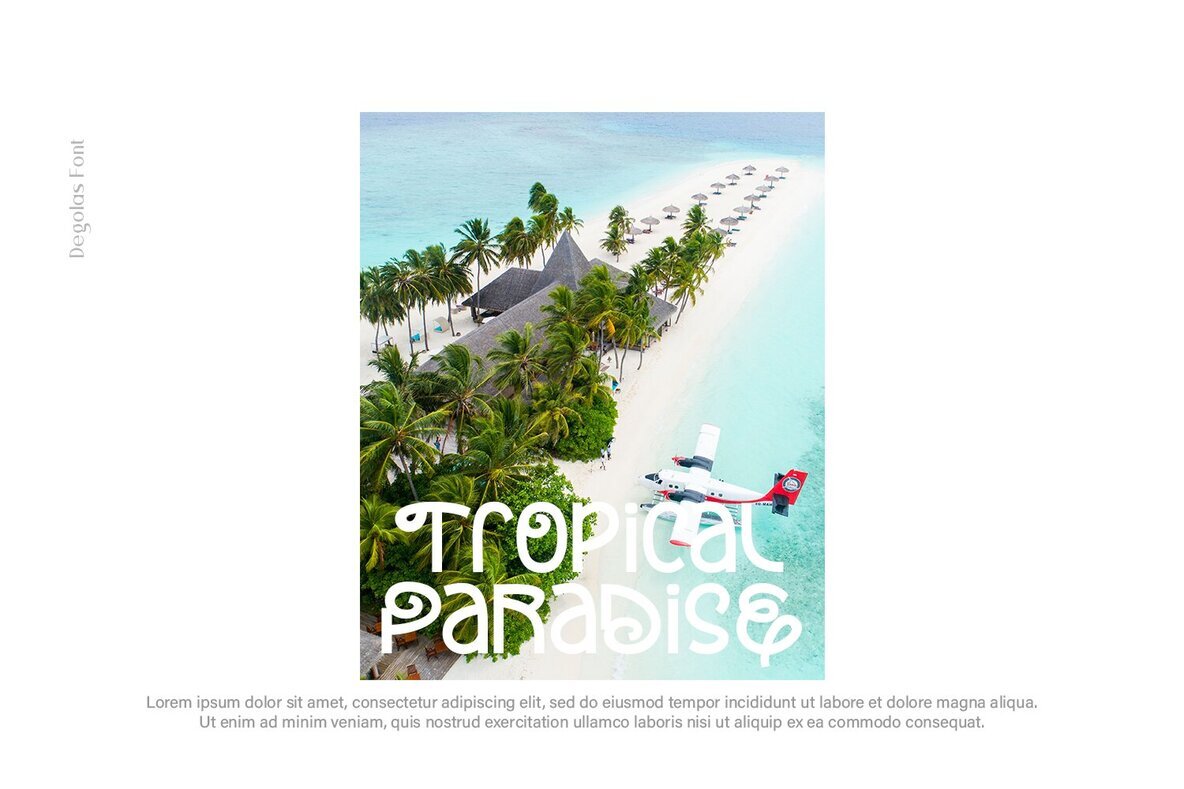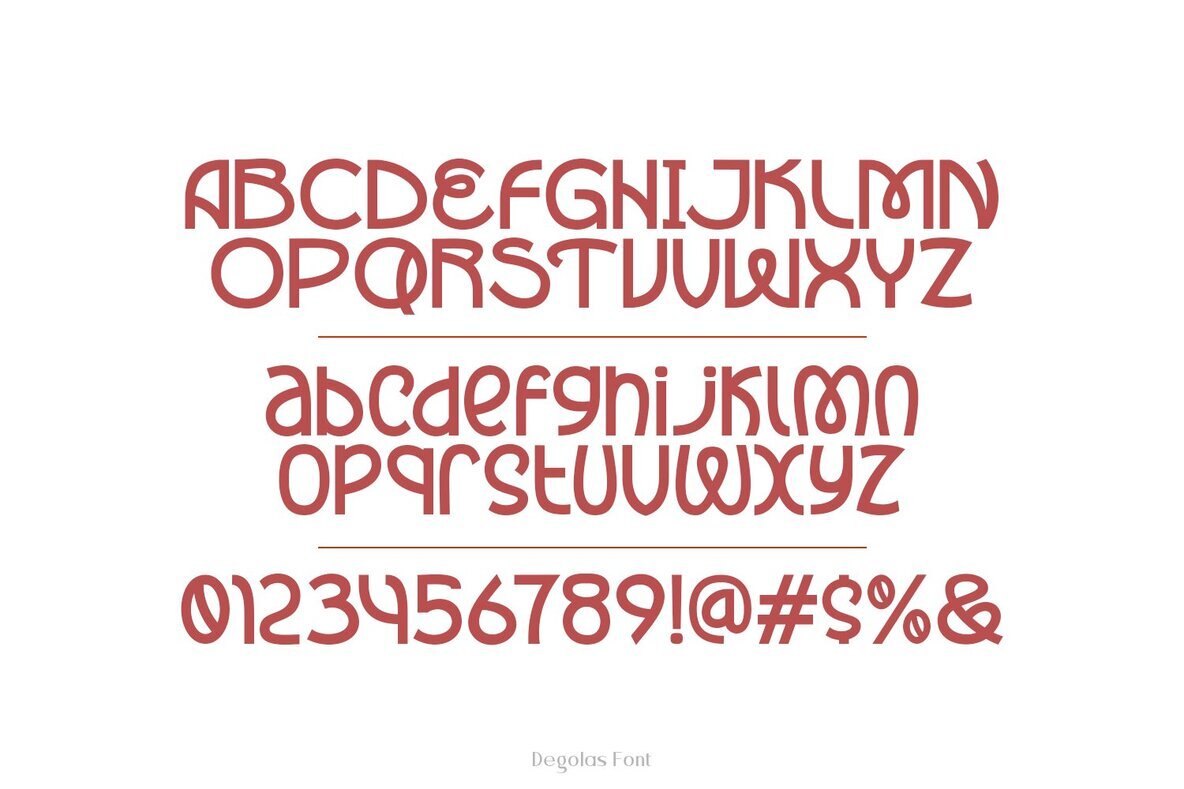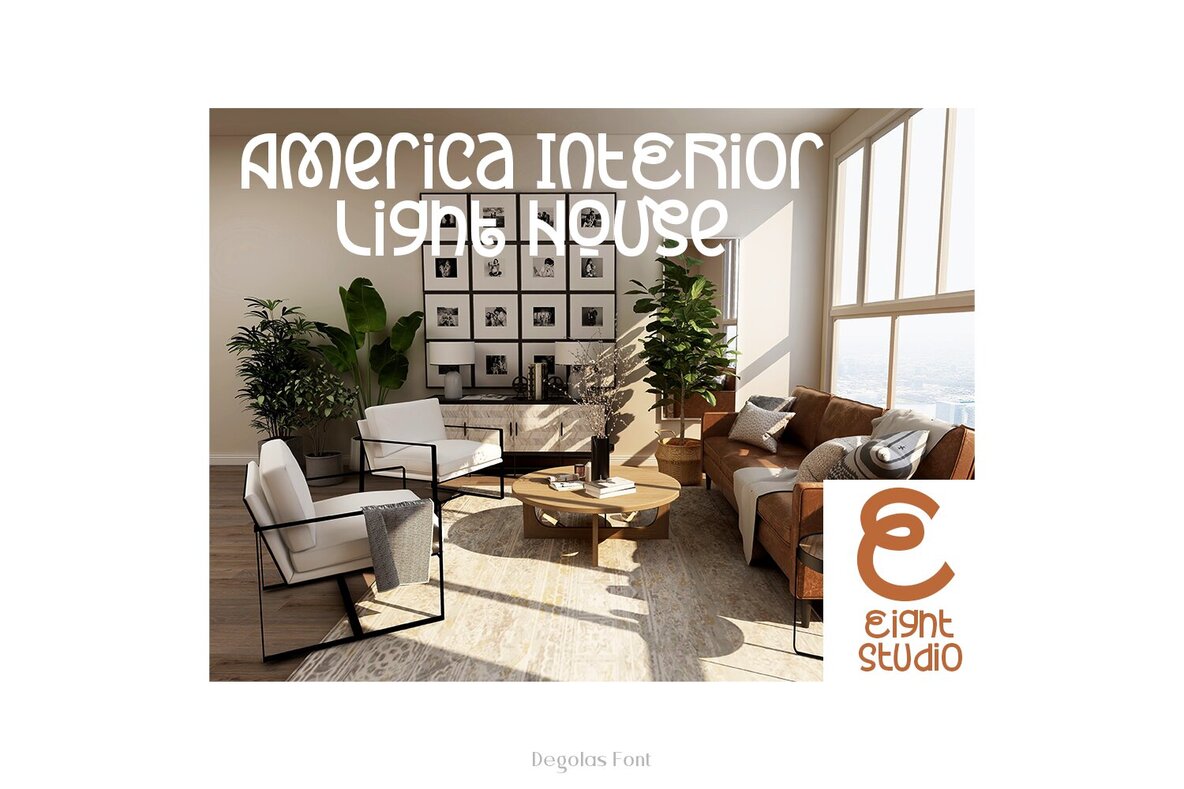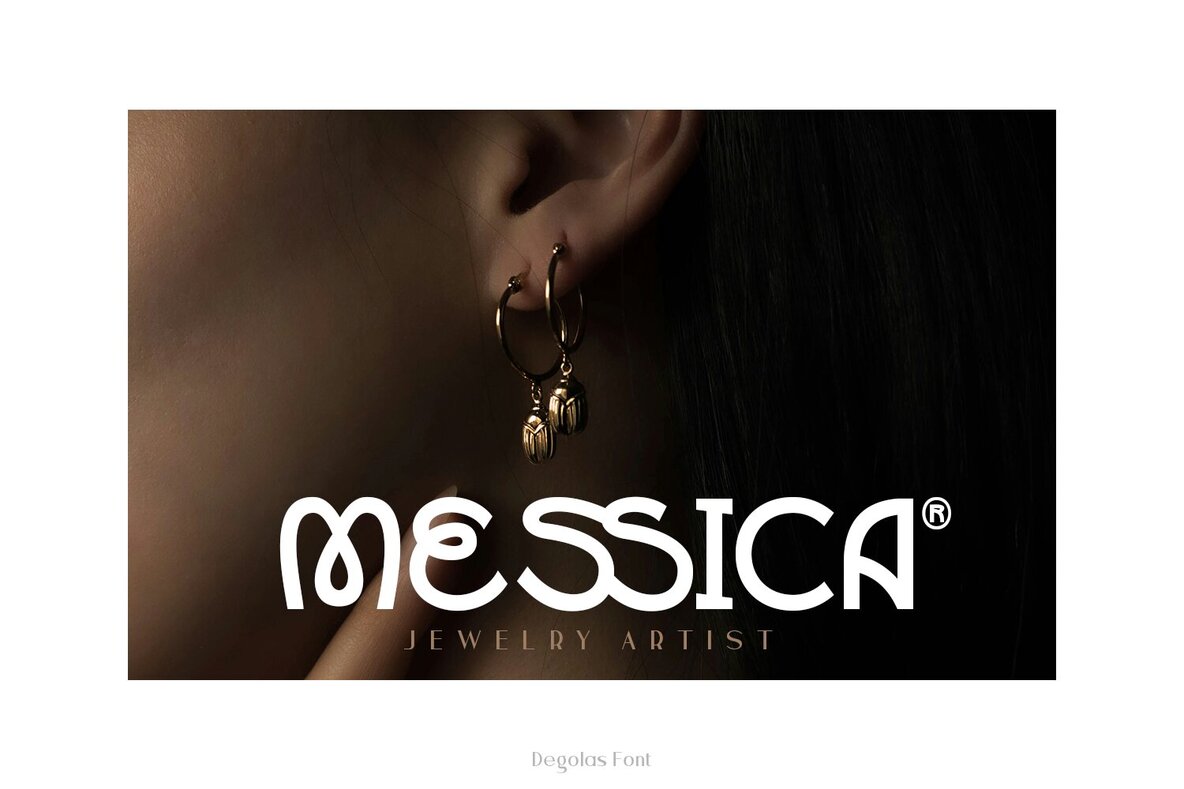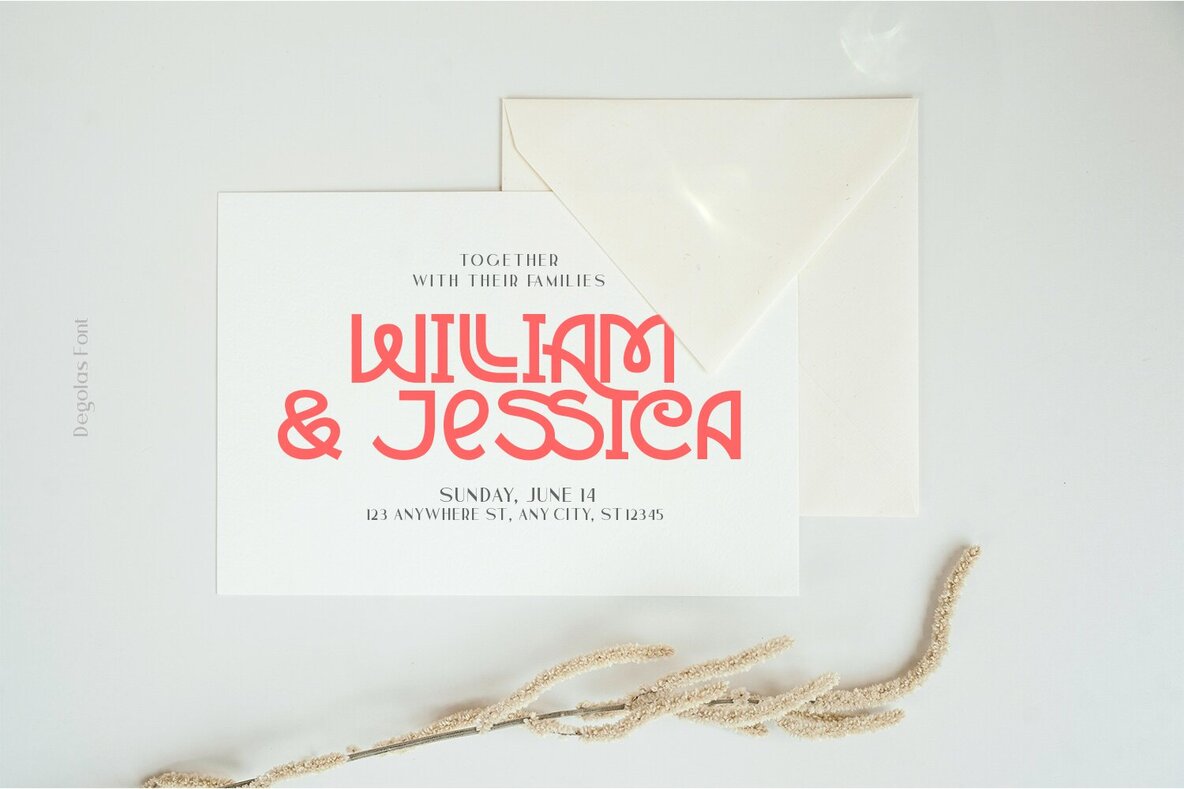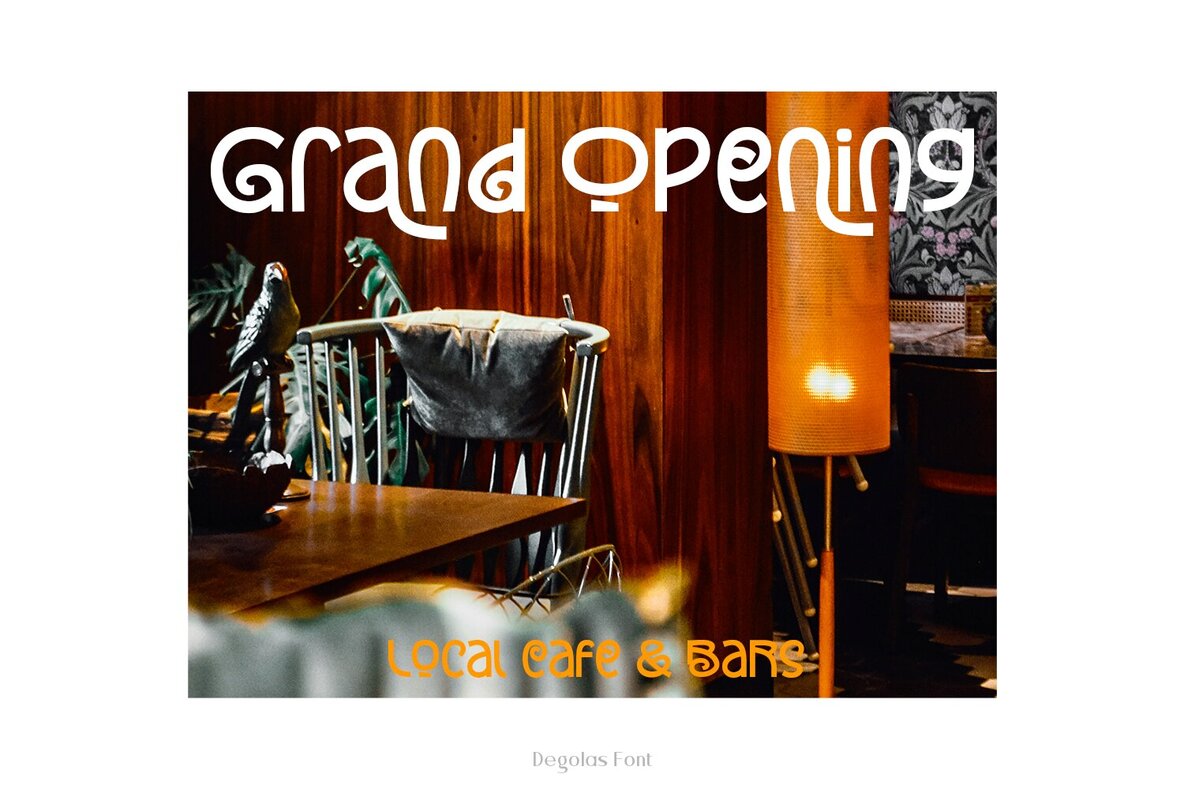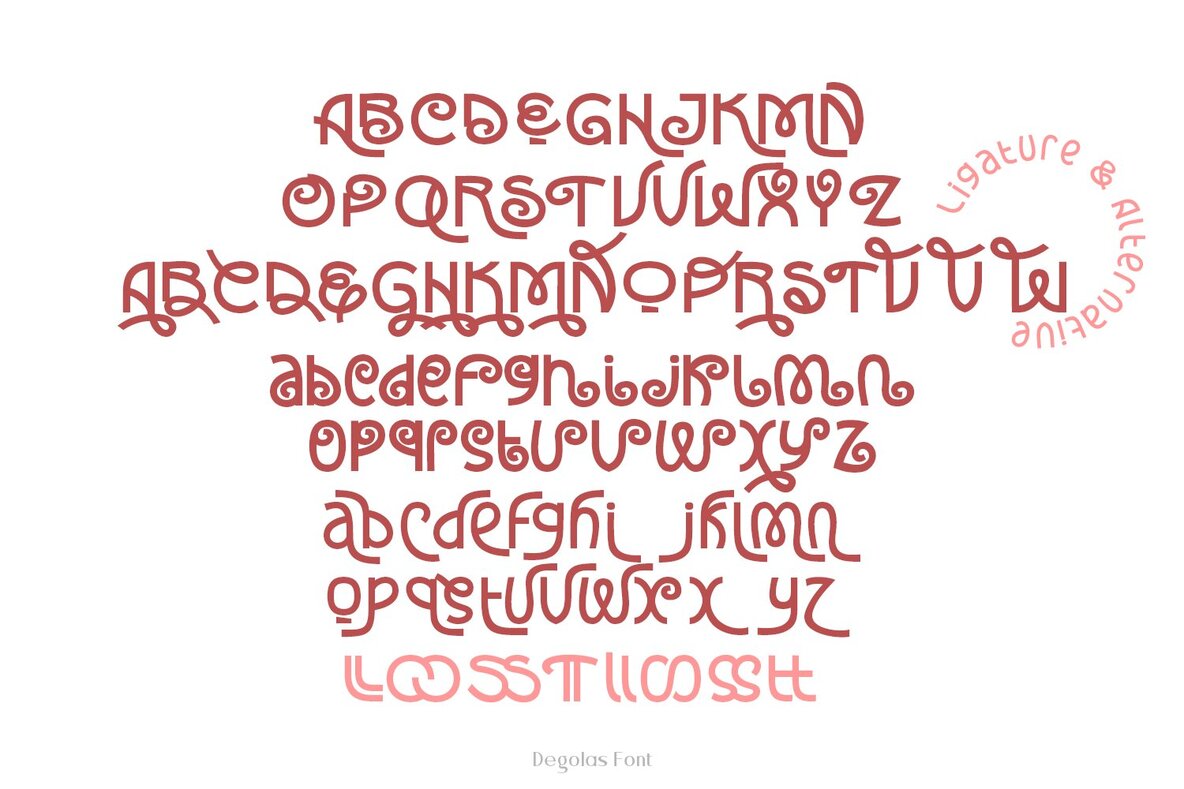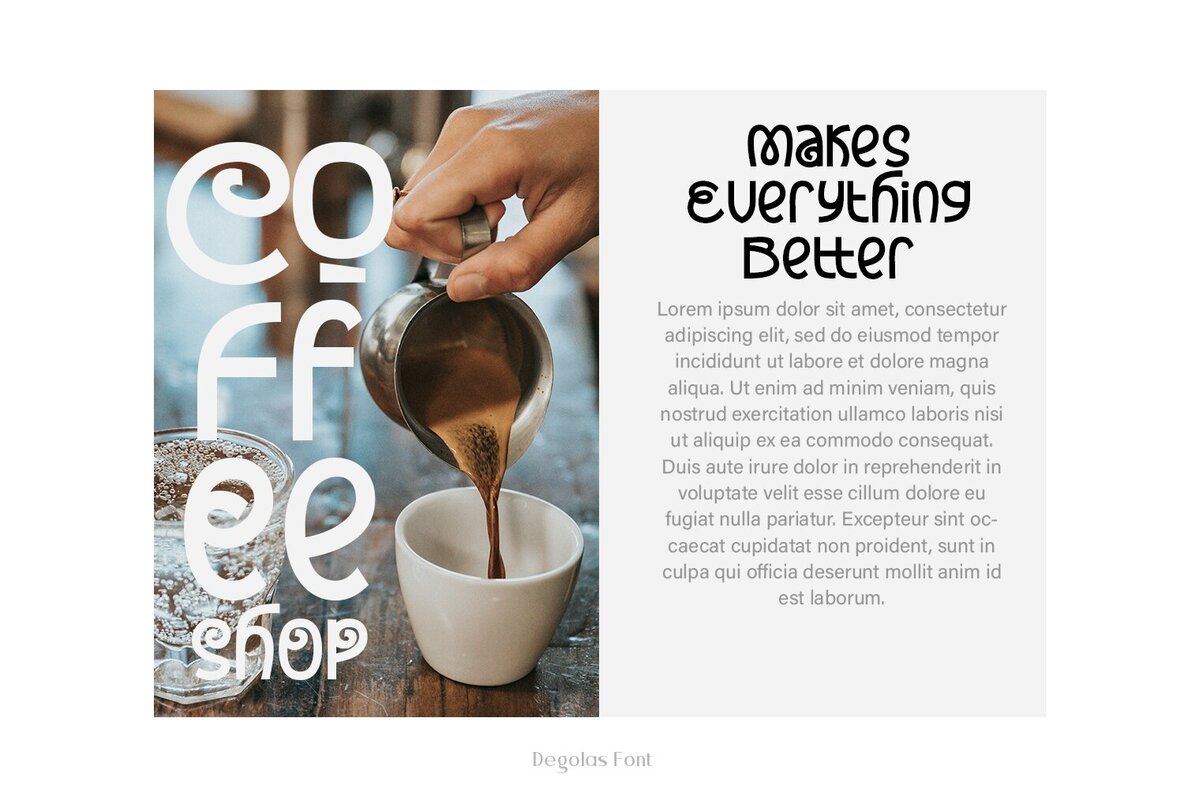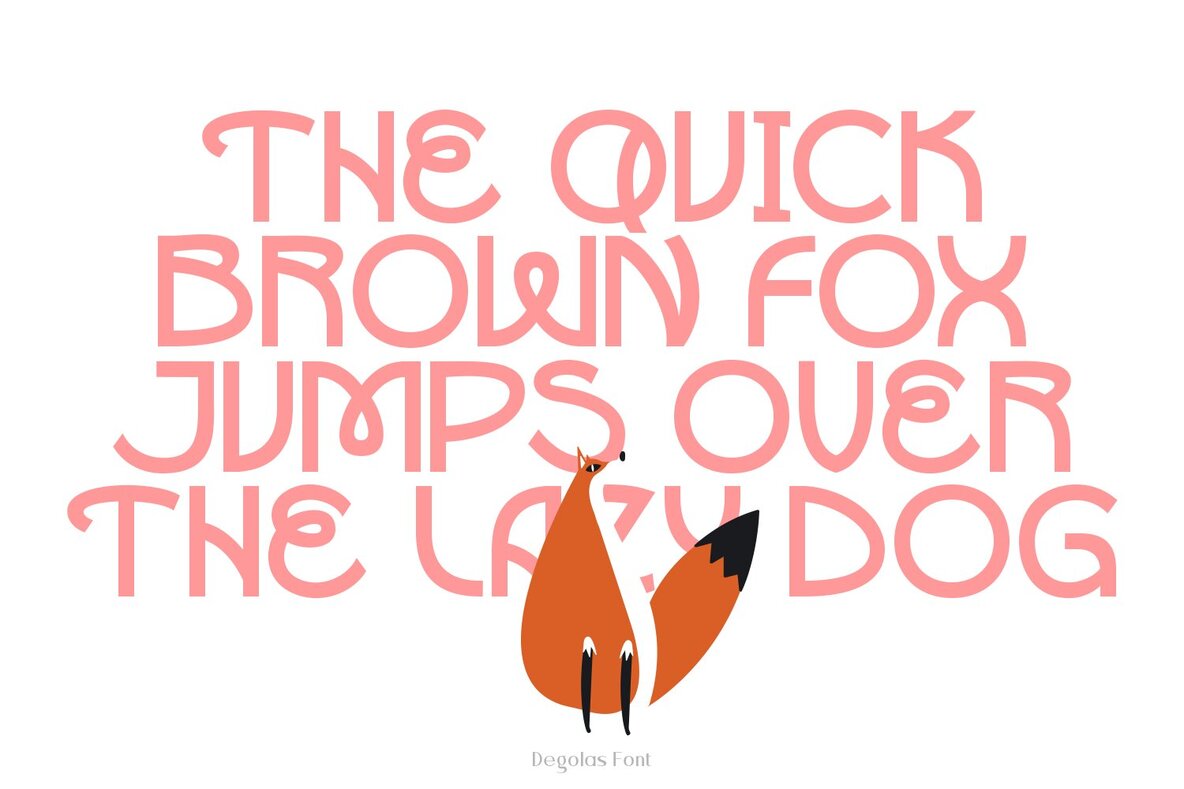
Degolas Font
Degolas
Degolas is a font inspired by the timeless beauty of Art Deco, offering a sleek and elegant vintage aesthetic. This typeface combines modernist simplicity with geometric, clean shapes, making it a versatile choice for a variety of design projects. Whether you're crafting a brand identity, designing product packaging, or creating eye-catching headlines, Degolas provides the sophistication and style you need.
Perfect for invitations, quotes, t-shirts, labels, posters, and logos, this typeface seamlessly blends classical influences with contemporary design elements. Its structured forms bring a sense of order and modernity to any project while maintaining a distinct vintage charm. Use Degolas to add a touch of refined elegance to your creative work.